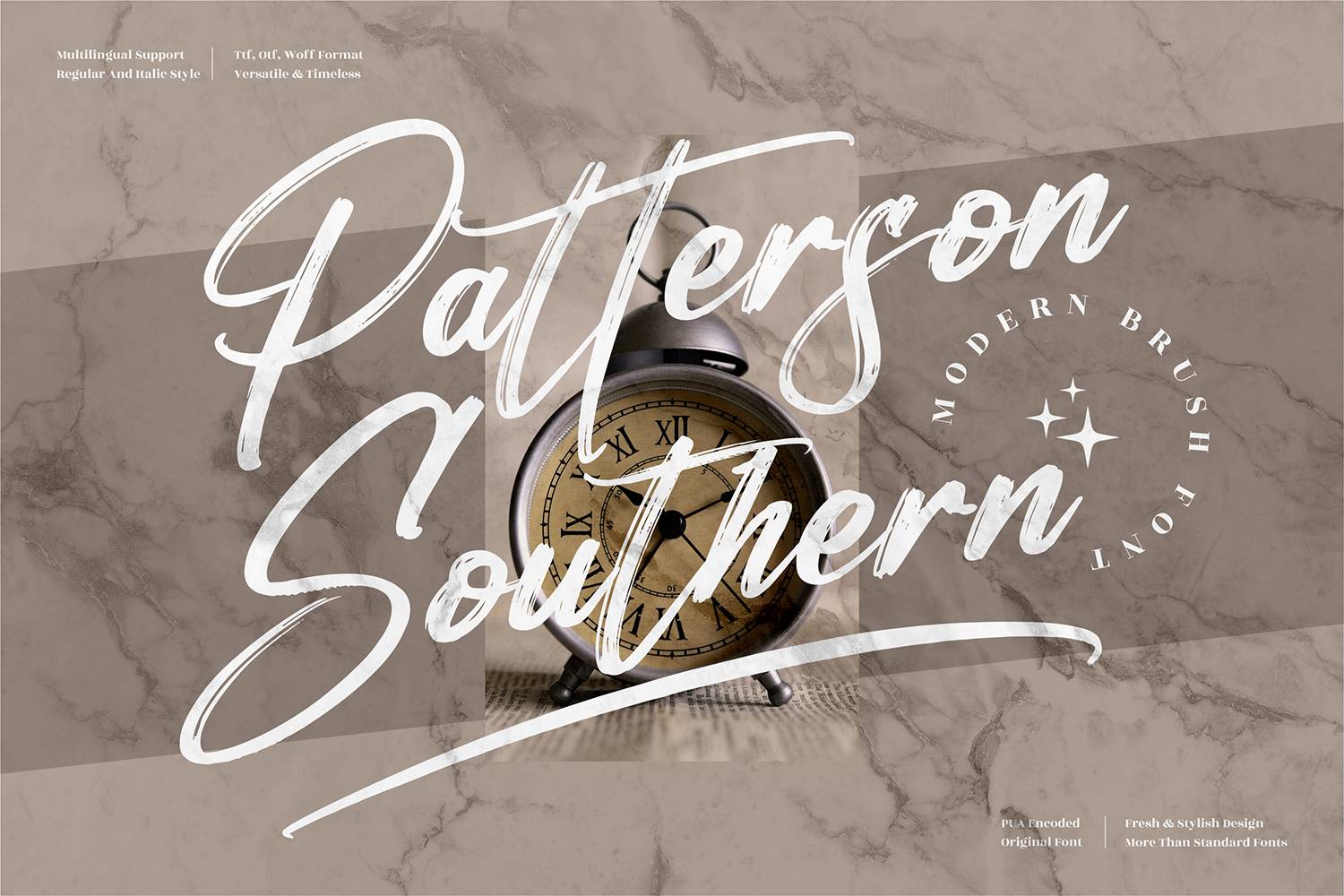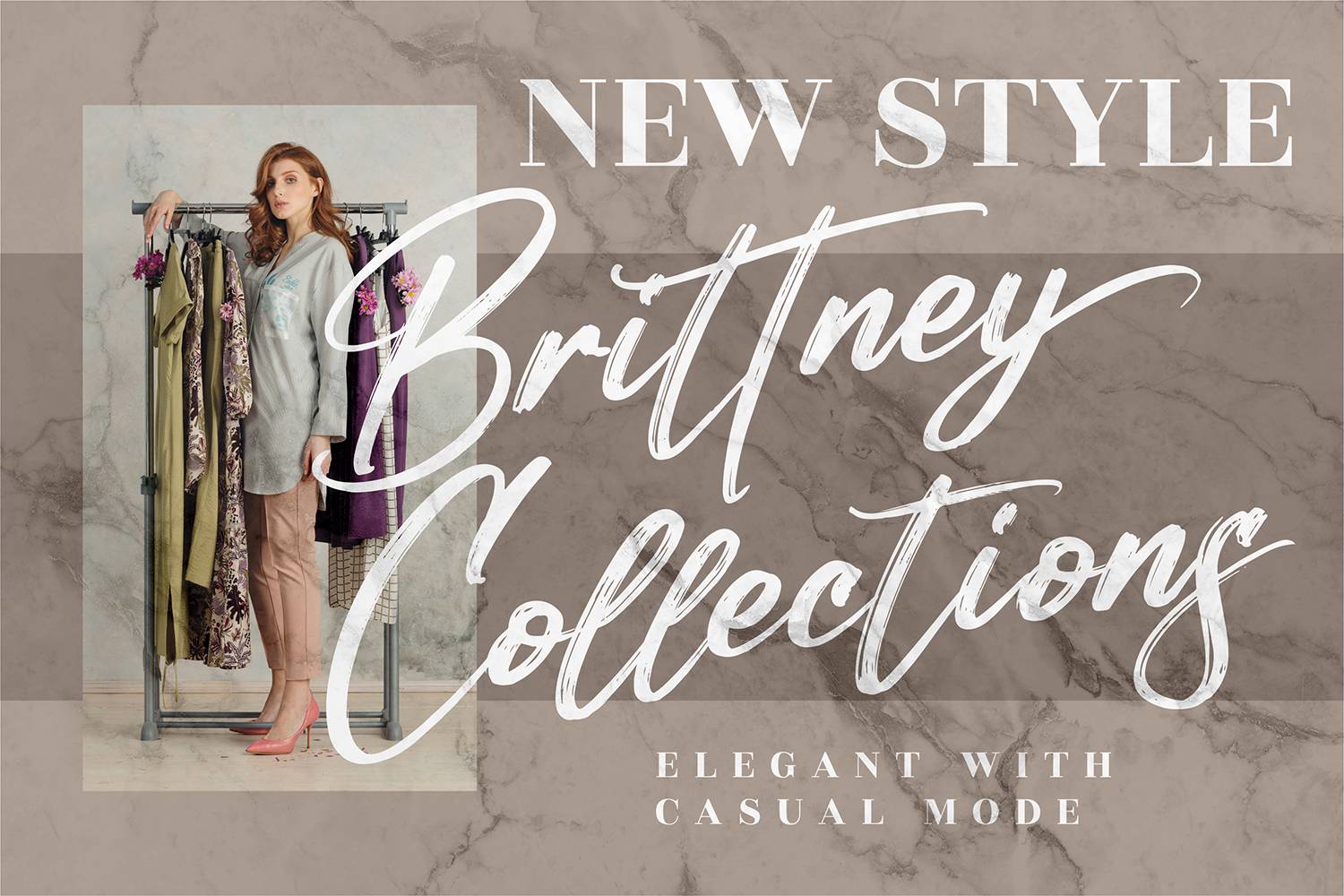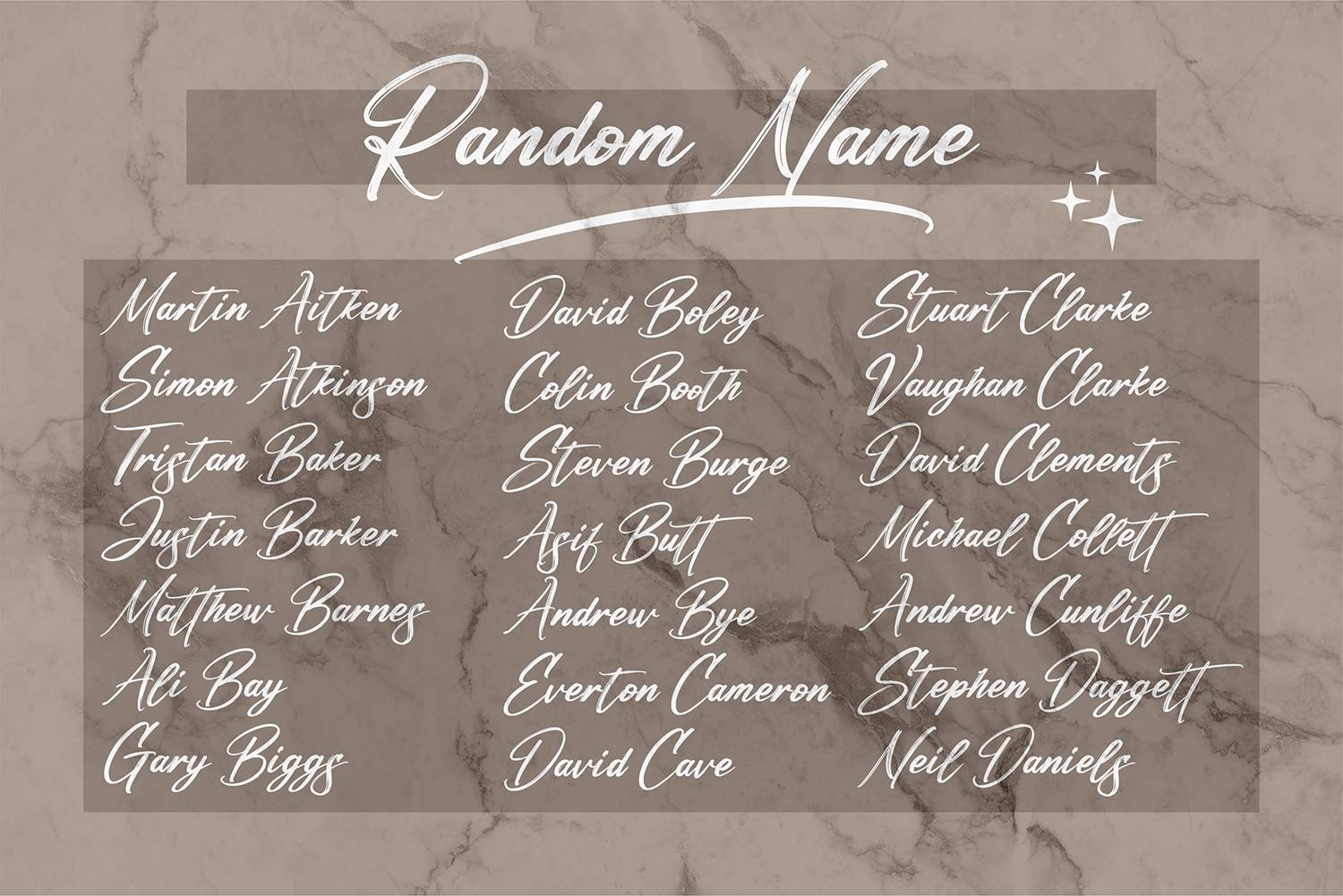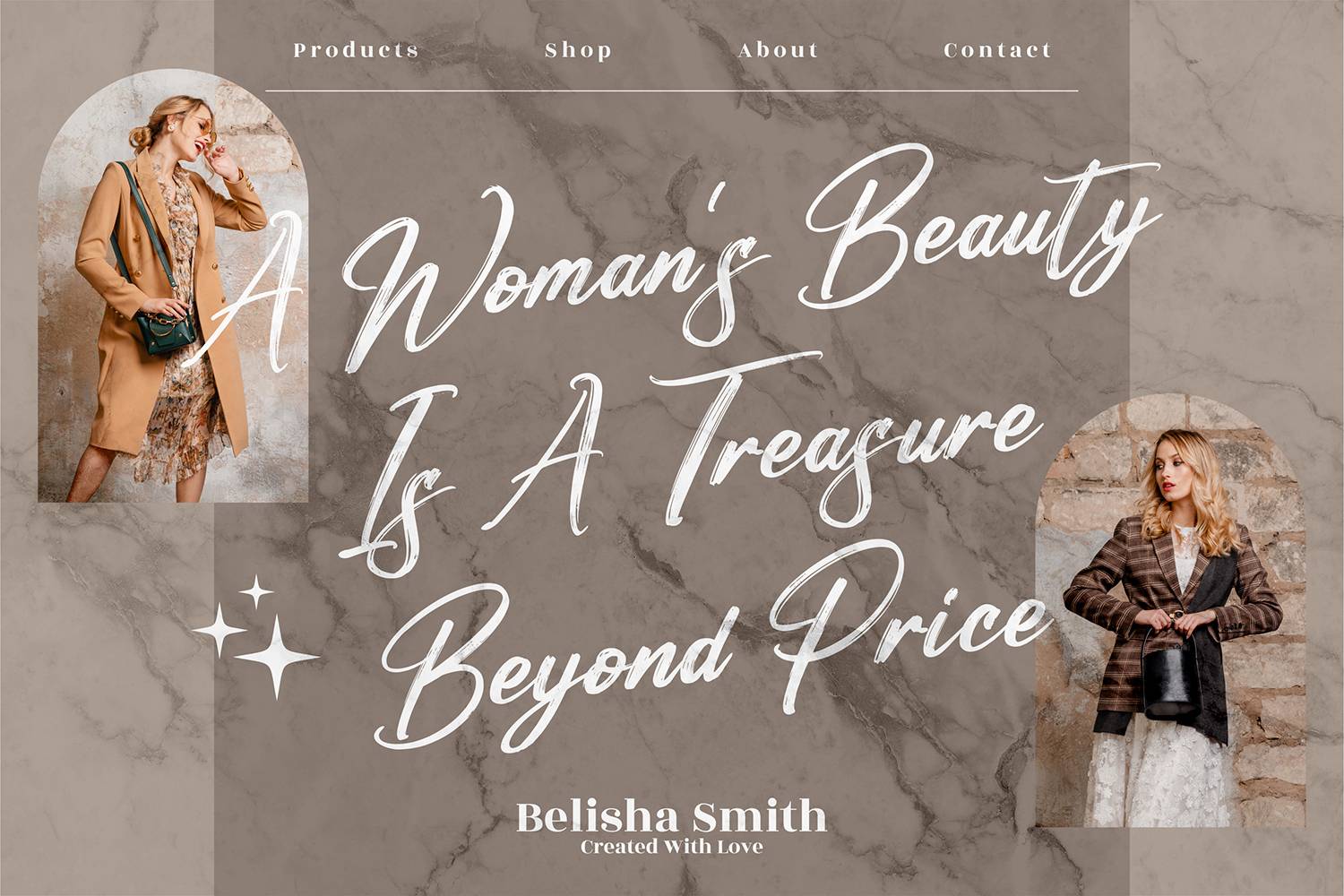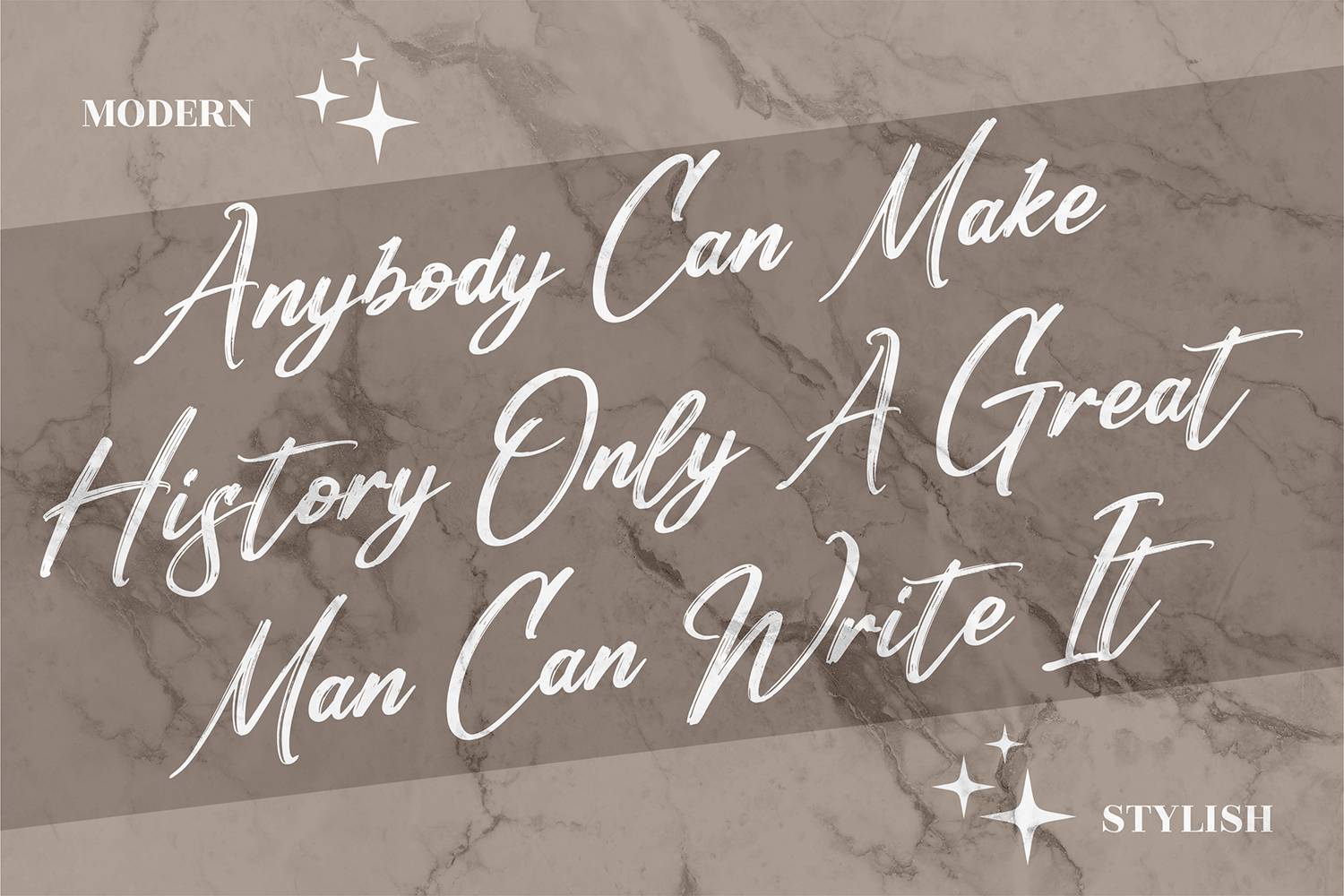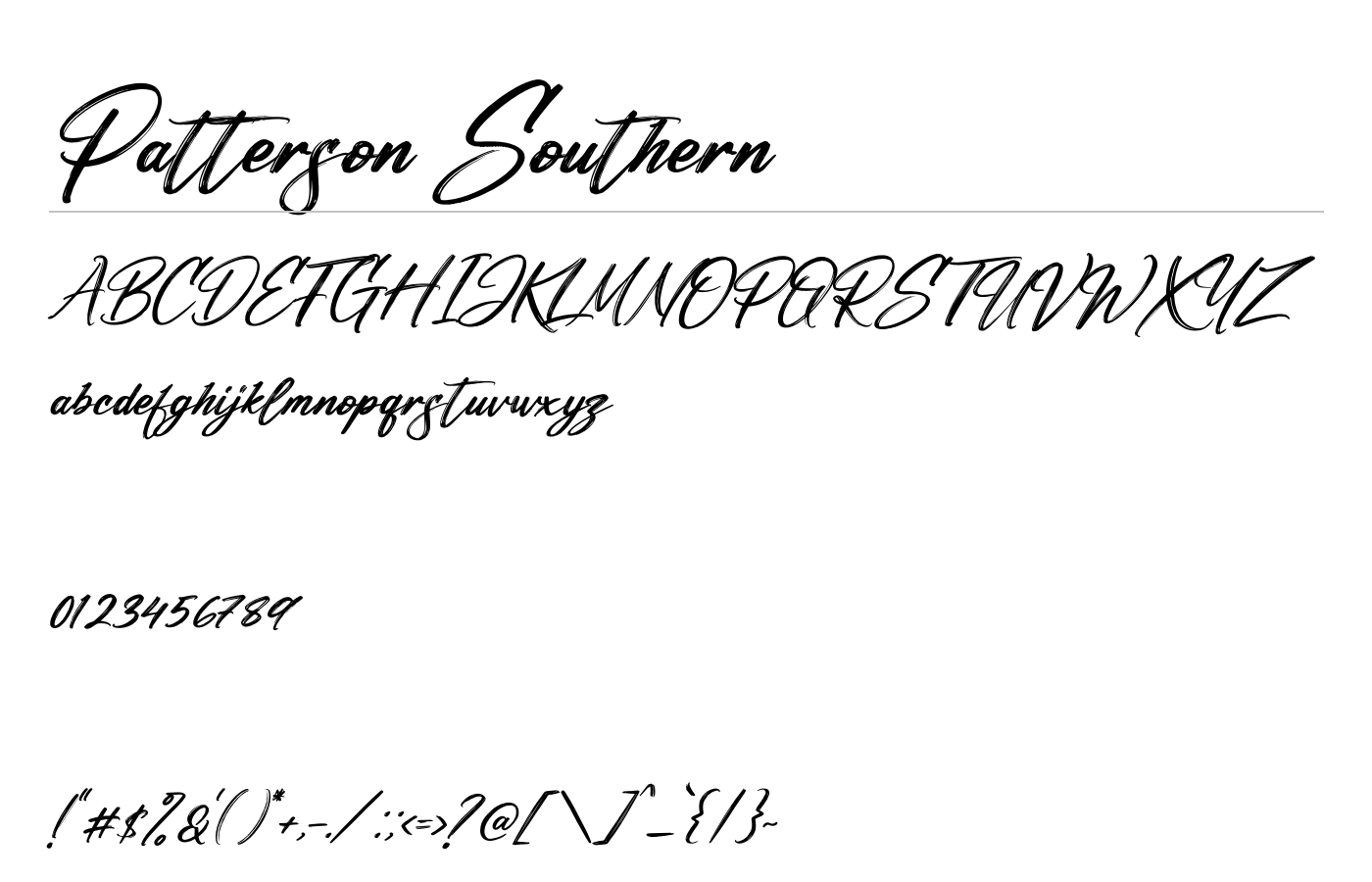
Patterson Southern is an elegant script font characterized by its fluid, brush-like strokes and natural, handwritten feel. Its medium weight and slightly condensed letterforms, combined with smooth, flowing lines and distinctive letter shapes, make it perfect for adding a personal, stylish touch to branding, invitations, and editorial headlines. This font exudes warmth and sophistication while maintaining a modern and approachable vibe, ideal for creative projects seeking a refined yet friendly look.
Patterson Southern Font
About Patterson Southern Font